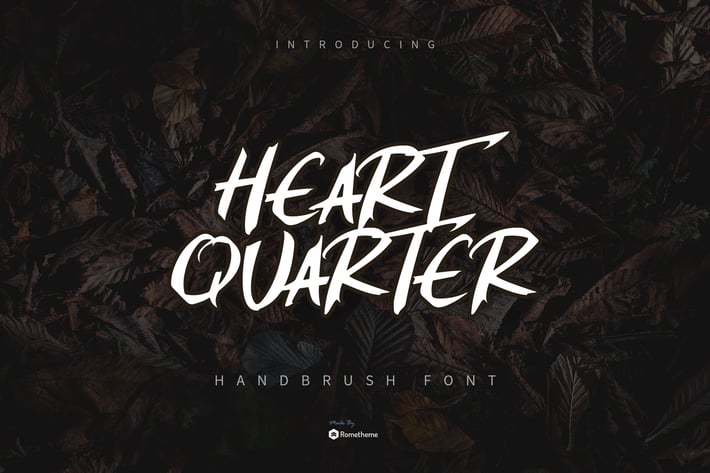
Heart Quarter - Brust Font
Heart Quarter is a brush font, hand-drawn typeface. It has an elegant, classy look and cool. Itβs a great font for fashion,
apparel projects, signature, album cover, logo, branding, magazine, social media, & advertisements,
but also works great for other projects.
Highlight :
- The perfect font choice for powerful projects - watermarks, signatures, photography, logos, business cards, quotes,
album covers.